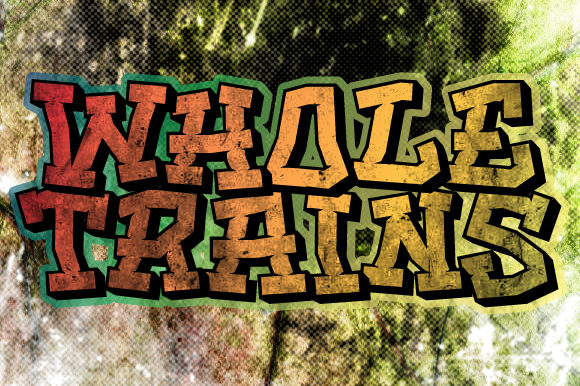
Journey through the world of urban artistry with Whole Trains, a blackletter font that captures the essence of street art and graffiti culture. Unleash your creativity and make a statement with this unique typeface, designed to turn heads and leave a lasting impression.
Whole Trains is a graffiti artist's dream, bringing the vibrant energy of the streets to your digital creations. Its bold, fluid lines and dynamic letterforms evoke the raw power and rebellious spirit of urban art. Whether you're working on branding, logo design, or social media graphics, Whole Trains will add an edgy touch to your projects.
More than just a font, Whole Trains is a gateway to a world of self-expression and artistic freedom. Embrace the rebellious spirit of graffiti and let your creativity run wild. The possibilities are endless, from eye-catching posters and flyers to custom t-shirt designs and social media graphics that demand attention.